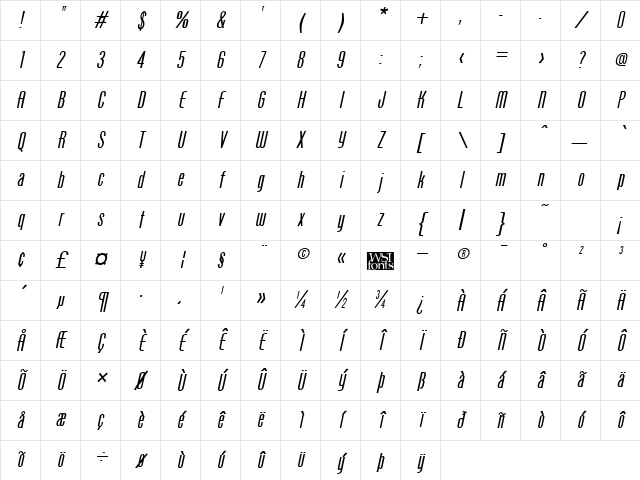
Protege kursiv
Style: kursiv
Design Context for Protege
Protege is a composed and adaptable typeface that performs quietly and consistently across a wide range of design contexts. The slanted form adds forward momentum and visual energy.